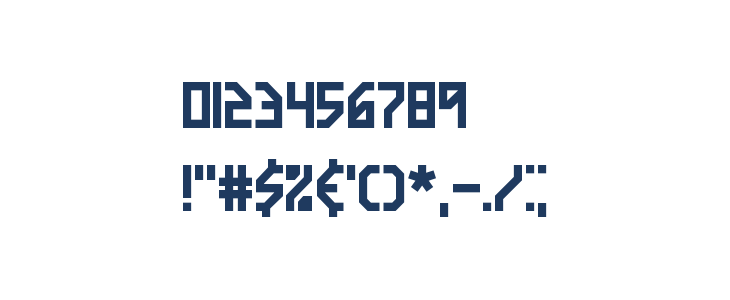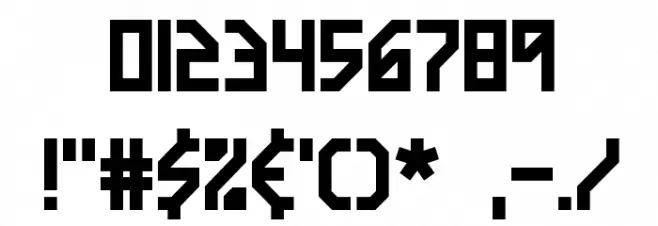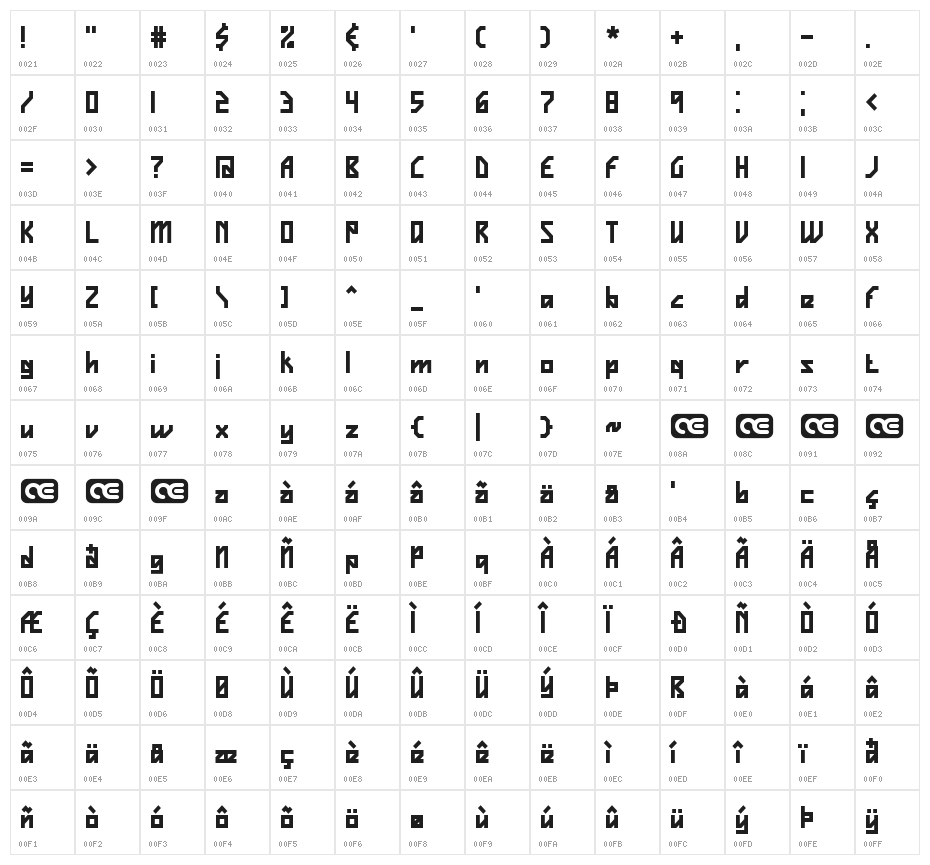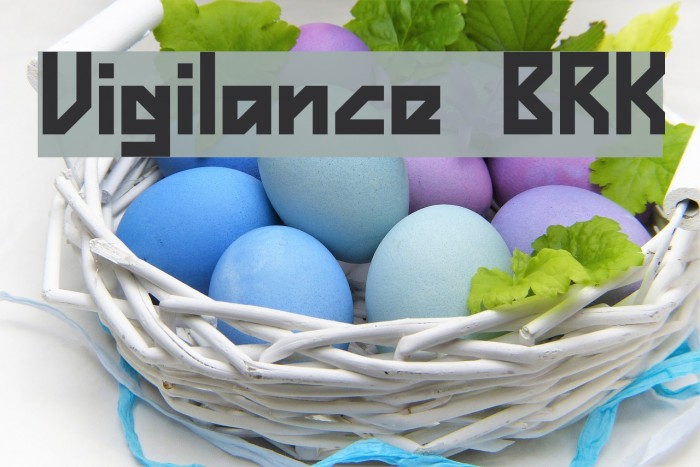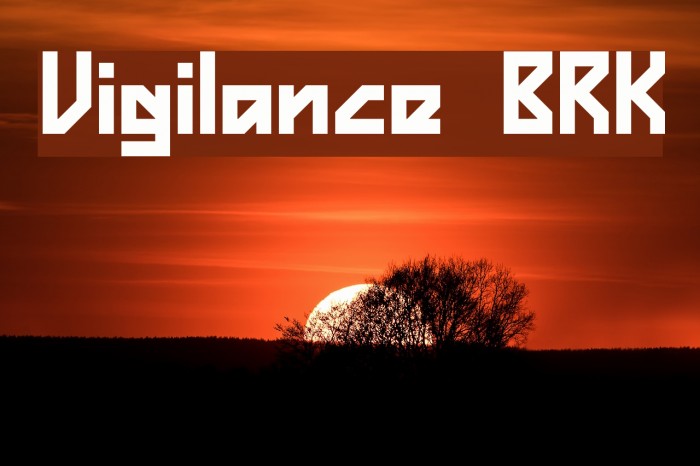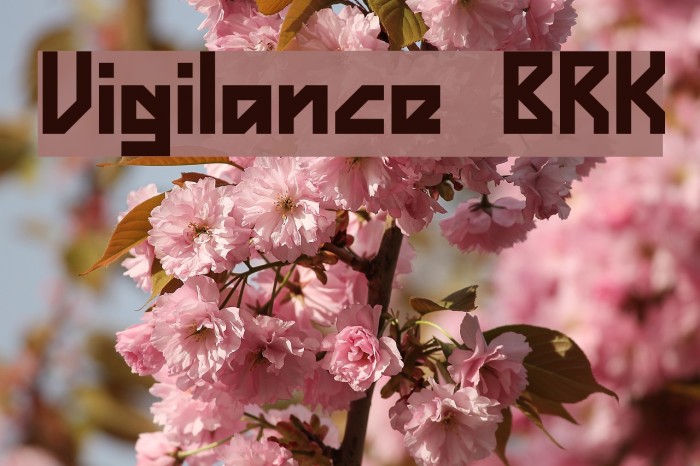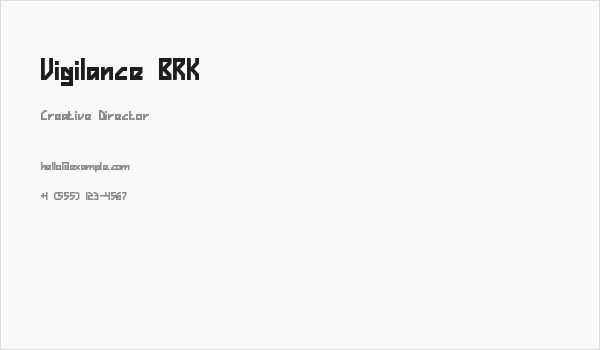
Vigilance BRK Font
Vigilance BRK Description
This font features a bold, geometric design with sharp angles and a futuristic aesthetic. The uppercase letters are distinct with a blocky, angular style that gives a sense of strength and modernity. Lowercase letters maintain the same geometric structure, ensuring consistency across the typeface. Numbers and special characters are designed to match the bold and angular theme, making them stand out with clarity and precision. The overall appearance is striking and suitable for attention-grabbing designs.
| Proposed Projects | Ideal for sci-fi themed projects, video game titles, posters, and branding that requires a modern and edgy look. |